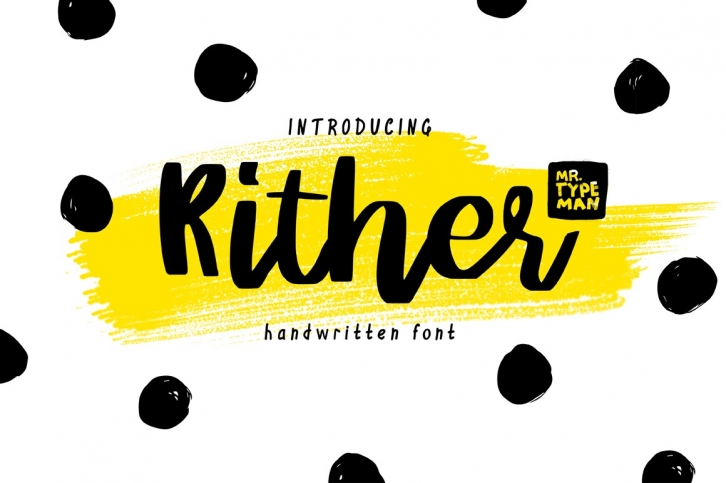
Rither Handwritten Script is a trendy and unique font with an authentic style. It was designed by MrTypeman and it's a great choice for creative people who need such a font. It was released on October 17, 2019 and the file size is 8.87 MB. Rither Handwritten Script will add an organic vibe to any design idea!